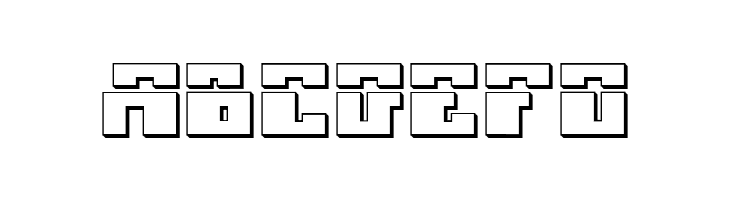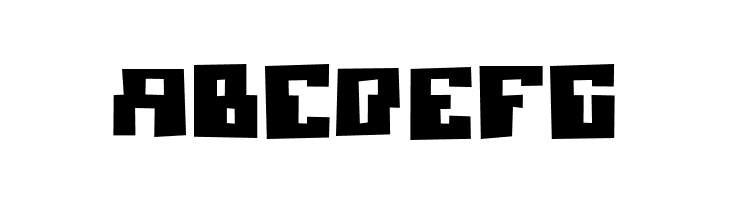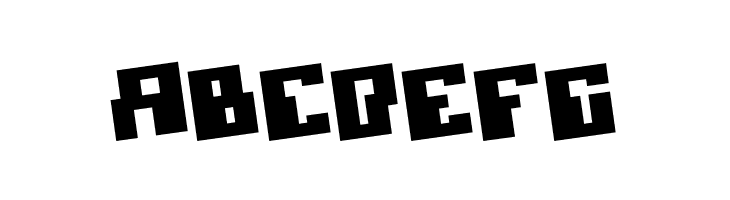
Fiddler's Cove Bold Italic Font
- Font: Fiddler's Cove Bold Italic
- Weight: Bold Italic
A futuristic, geometric font with a 3D effect and bold, angular lines.
A bold, geometric font with a futuristic, industrial style.
A bold, geometric font with a futuristic, blocky design.
A bold, geometric font with a futuristic and digital aesthetic.
A bold, geometric font with a futuristic, digital aesthetic.
A bold, futuristic italic font with sharp angles and a dynamic style.
A bold, futuristic font with angular, italicized characters.
A bold, geometric italic font with a futuristic and dynamic style.